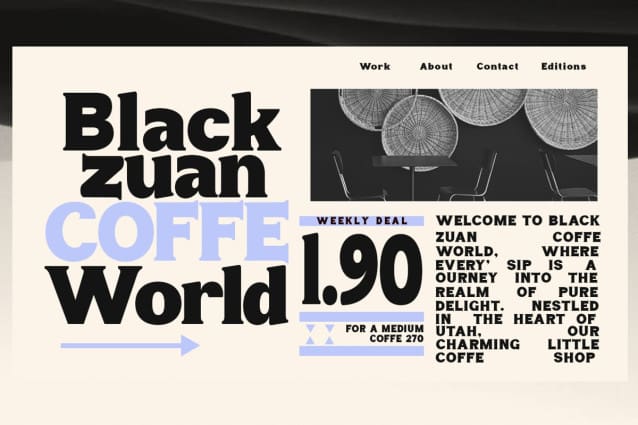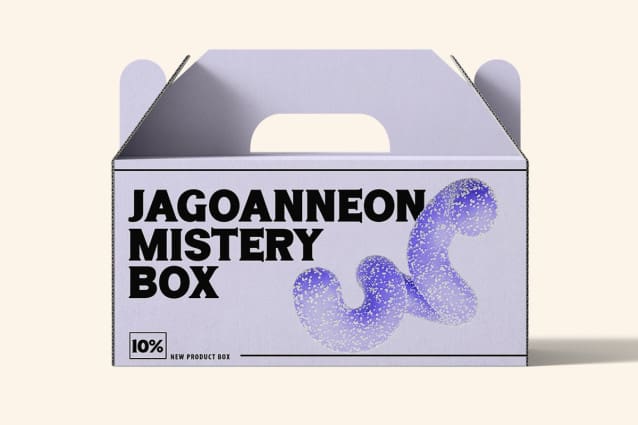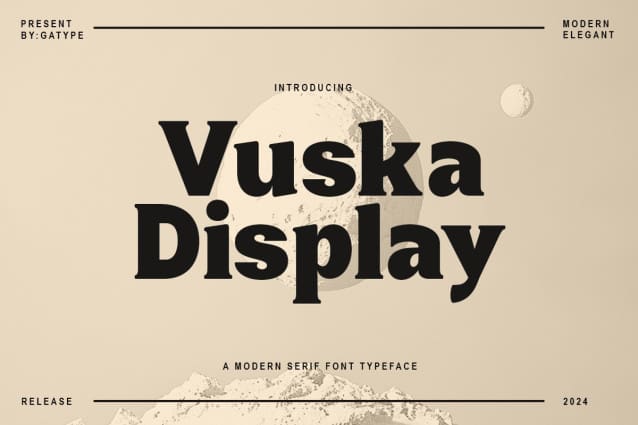
Vuska Display Font
Vuska Display Font is a font with a modern and elegant style, featuring clean lines and sleek design. Its readable yet attractive characters make it suitable for various global design needs, such as logos, posters, and professional branding.